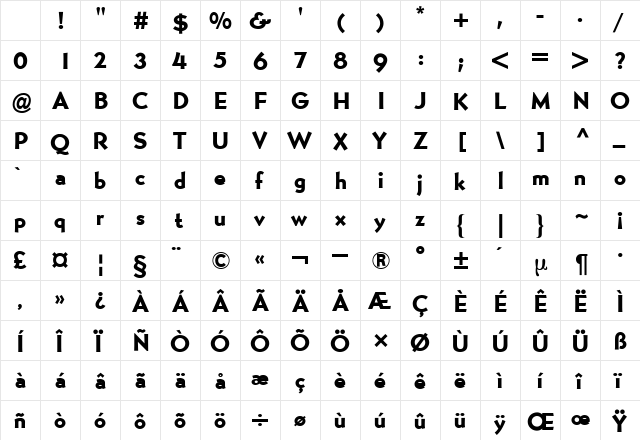
Complete Bernhard Gothic BQ Regular glyph index. Displaying only characters natively supported by Bernhard Gothic BQ Regular font.
Bernhard Gothic BQ takes a clean, functional approach - its unadorned letterforms prioritise legibility and work reliably across screen and print environments.
Font Pairing: Works well alongside a characterful serif or display font that can carry the expressive load while Bernhard Gothic BQ handles the functional copy.
Pro Tip: Use Bernhard Gothic BQ for UI labels, navigation, and short-form body copy where clean legibility is the priority.